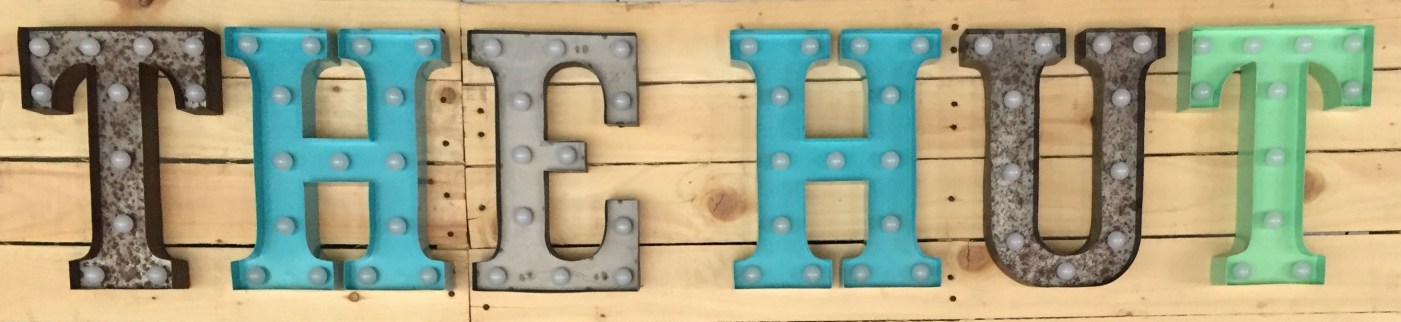
What Antique Serif is this?
Hi all, I'm trying to recreate a logo based on this sign but I can' track down the typeface. The closest I have come is 'Aachen' but its not right really. Any help much appreciated!
Ah thanks Kevin, Rosewood looks pretty similar!
Zebrawood could be another match, or something by FontMesa although it is not a serif Signyard by albatross seems to have a similar feel.